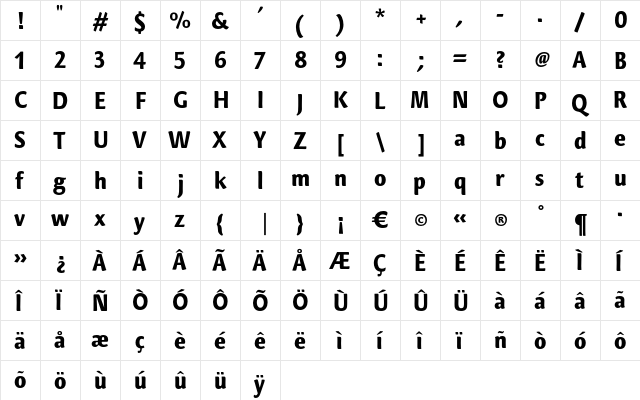
CarrefourCond Bold
Design Context for CarrefourCond Typeface
CarrefourCond takes a measured approach to typography — its balanced proportions and neutral character make it a reliable workhorse for both digital and print work. The heavy weight commands attention and anchors typographic hierarchies. The condensed width makes it efficient for tight spaces without sacrificing legibility.